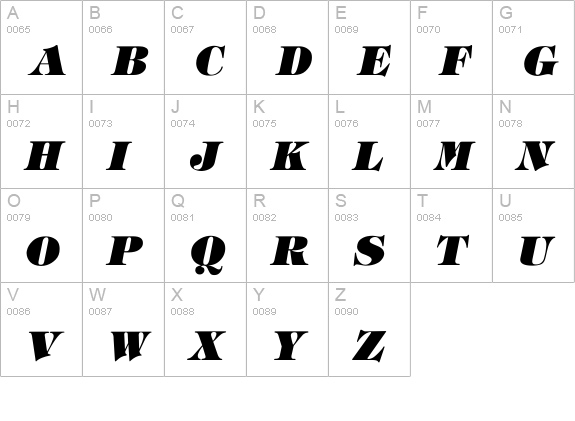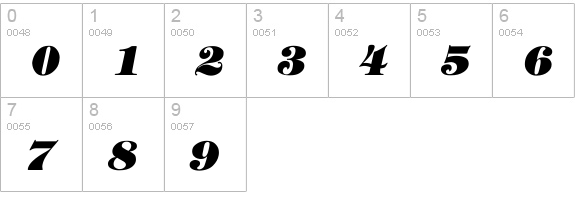
Timpani_Heavy-Italic Font Details
Timpani_Heavy-Italic is a distinctive, italic variant in the Timpani_Heavy typeface family \xE2\x80\x94 well suited to design and typography projects.
Introducing Timpani Heavy-Italic, a font that exudes power, elegance, and a touch of sophistication. This captivating typeface, with its bold strokes and graceful curves, is sure to make a lasting impression on any design project. Whether you're creating a striking logo, designing a captivating poster, or crafting eye-catching headlines, Timpani Heavy-Italic will elevate your work to new heights. With its commanding presence, this font demands attention and brings a sense of grandeur to any composition. Its italicized style adds a touch of flair and a unique twist, making it ideal for projects that require a touch of drama and creativity. Timpani Heavy-Italic effortlessly combines strength and finesse, making it a versatile choice for a wide range of design applications. But what makes Timpani Heavy-Italic truly remarkable is that it is freely available to download at FontsMarket.com. This means that you can enjoy the benefits of this extraordinary font without any cost. Whether you're a professional designer or a hobbyist, this font is accessible to all, allowing you to unleash your creativity without any limitations. So why wait? Take advantage of this amazing opportunity and enhance your designs with Timpani Heavy-Italic. Download it now from FontsMarket.com and let your imagination run wild. Embrace the power, elegance, and freedom that this font embodies, and watch your designs come to life in ways you never thought possible.